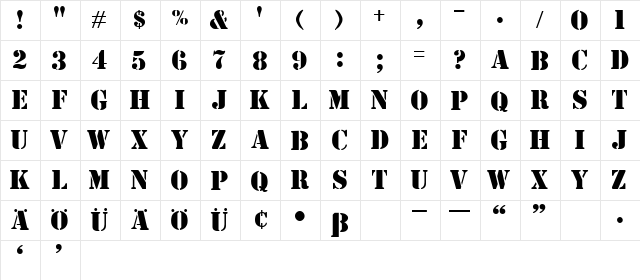
StencilCut.fog fog
Design Context for StencilCut.fog Typeface
StencilCut.fog borrows the utilitarian aesthetic of stencil lettering, with its characteristic cutaways and no-frills construction lending an industrial edge.
Ideal for industrial branding, streetwear, military-adjacent aesthetics, and urban signage projects.
Pro Tip: Pair StencilCut.fog with raw, utilitarian design elements — exposed concrete textures, flat colour, and minimal ornamentation suit it well.